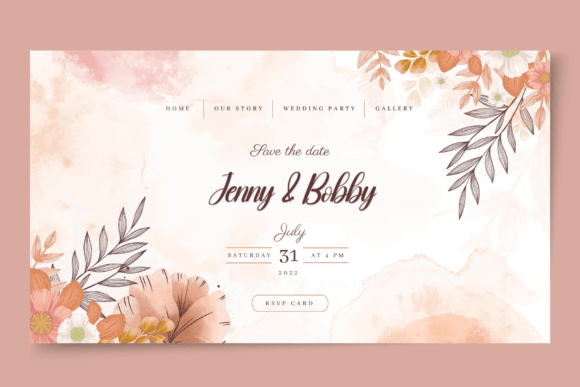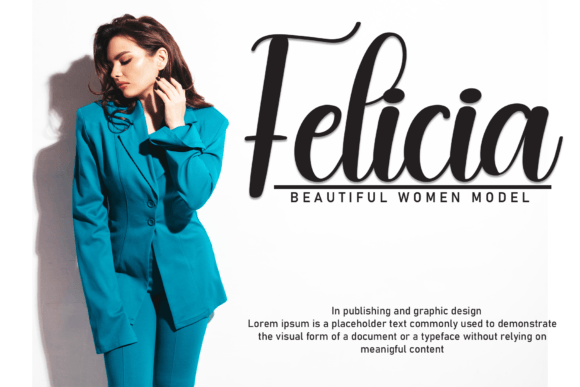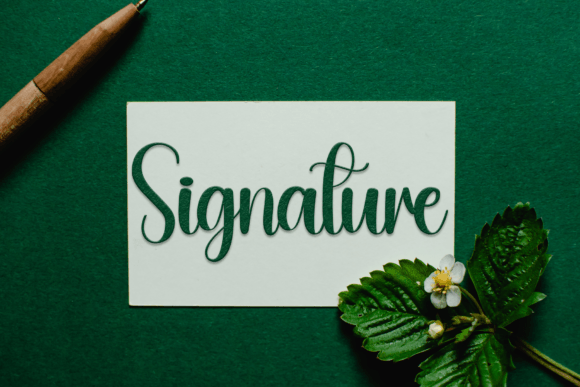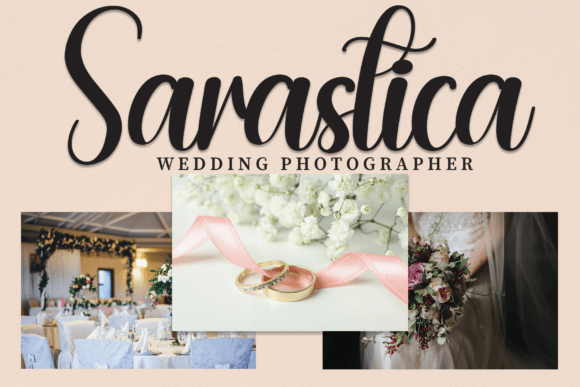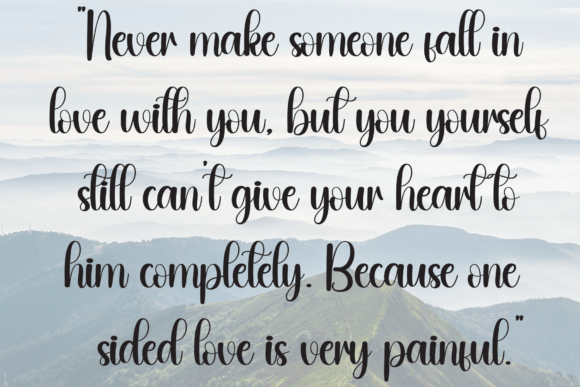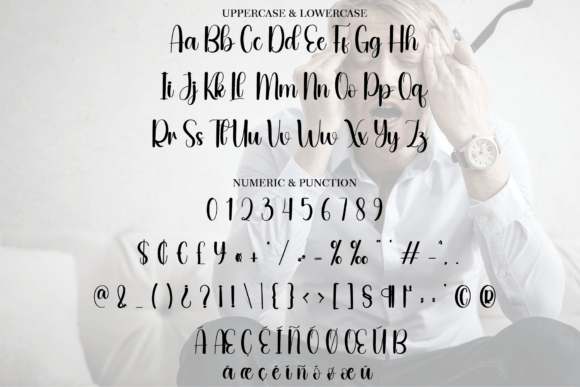
Introducing Failure Font: The Sweet and Friendly Handwritten Font for Your Design Needs
Are you tired of using the same old fonts for your designs? Look no further! Failure Font is here to bring a fresh and fun touch to your creations. This sweet and friendly handwritten font is perfect for adding a personal and playful touch to your wedding invitations, cards, and other designs.
What Makes Failure Font So Special?
Failure Font is a unique and charming handwritten font that is sure to capture the attention of your audience. Its fresh and cute design makes it ideal for a variety of design projects, from wedding invitations and cards to social media graphics and more. The font’s friendly and approachable feel makes it perfect for designers and crafters who want to add a personal touch to their work.
Wedding invitations and cards are a great way to showcase your personal style, and Failure Font is the perfect choice for adding a touch of whimsy and romance. The font’s elegant yet playful design makes it ideal for wedding designs, and its readability ensures that your message will be clear and easy to understand. Whether you’re designing a formal or informal wedding invitation, Failure Font is sure to make your design stand out.
Adding a Fun Touch to Your Designs
Failure Font is not just limited to wedding invitations and cards. This versatile font can be used for a wide range of design projects, from social media graphics and blog posts to posters and flyers. The font’s fun and playful design makes it perfect for adding a touch of personality to your designs, and its flexibility ensures that it will work well with a variety of design styles.
Why Choose Failure Font?
So why choose Failure Font for your design needs? Here are just a few reasons:
- Unique and charming design: Failure Font has a unique and charming design that is sure to capture the attention of your audience.
- Fresh and cute: The font’s fresh and cute design makes it perfect for adding a fun and playful touch to your designs.
- Highly readable: Failure Font is highly readable, making it easy for your audience to understand your message.
- Versatile: The font can be used for a wide range of design projects, from wedding invitations and cards to social media graphics and more.
Tips for Using Failure Font
Here are a few tips for using Failure Font in your designs:
- Pair with other fonts: Failure Font pairs well with other fonts, so don’t be afraid to experiment with different combinations.
- Use for headings and titles: The font’s bold and playful design makes it perfect for headings and titles.
- Add a personal touch: Use Failure Font to add a personal touch to your designs, such as a handwritten note or a special message.
Failure Font is a sweet and friendly handwritten font that is perfect for adding a fun and playful touch to your designs. Its unique and charming design makes it ideal for wedding invitations, cards, and other design projects. With its high readability and versatility, Failure Font is a great choice for designers and crafters who want to add a personal touch to their work. So why not give Failure Font a try and see how it can enhance your designs?
Whether you’re a professional designer or a crafter, Failure Font is a great addition to your font collection. Its fresh and cute design is sure to bring a smile to your face and inspire your creativity. So go ahead, download Failure Font, and start creating your own unique and charming designs today!